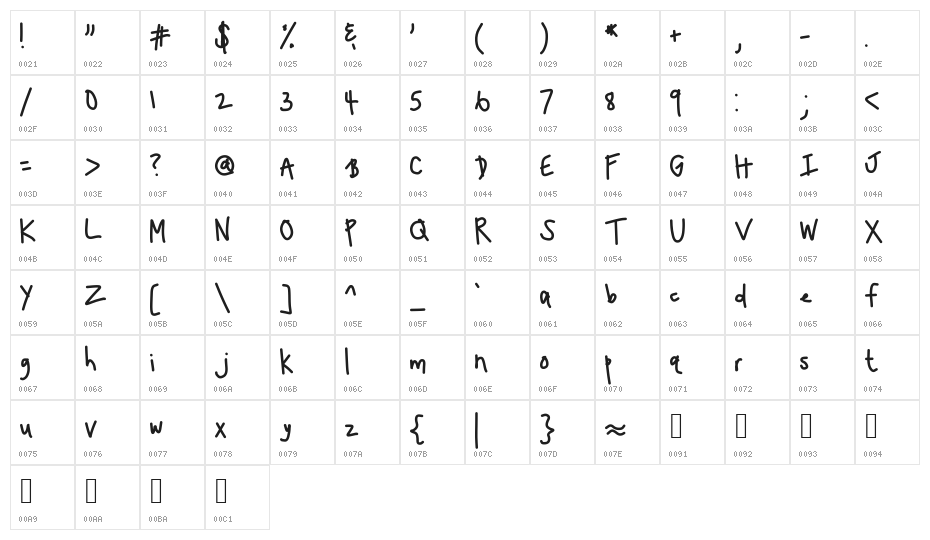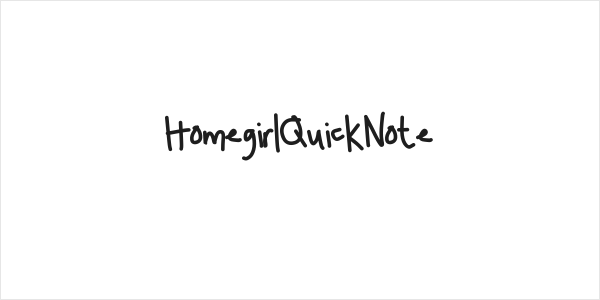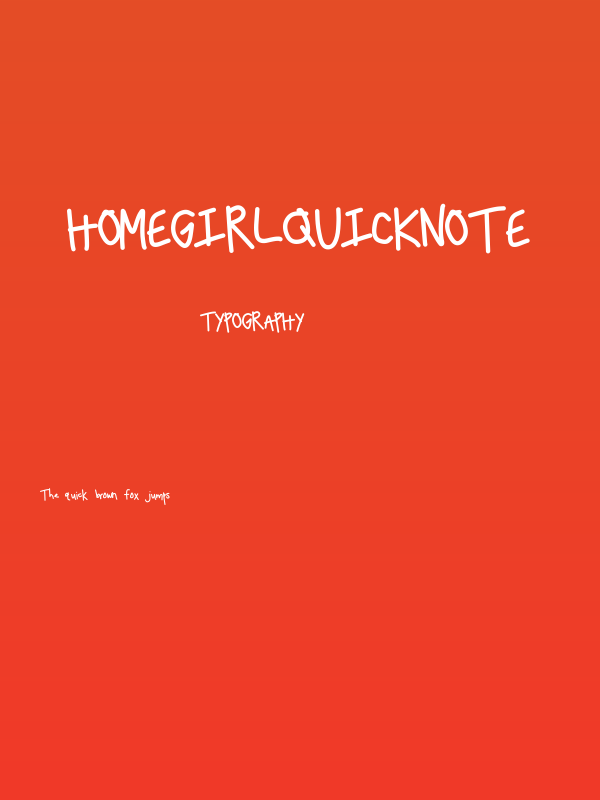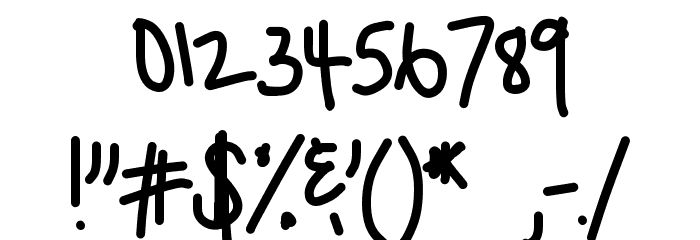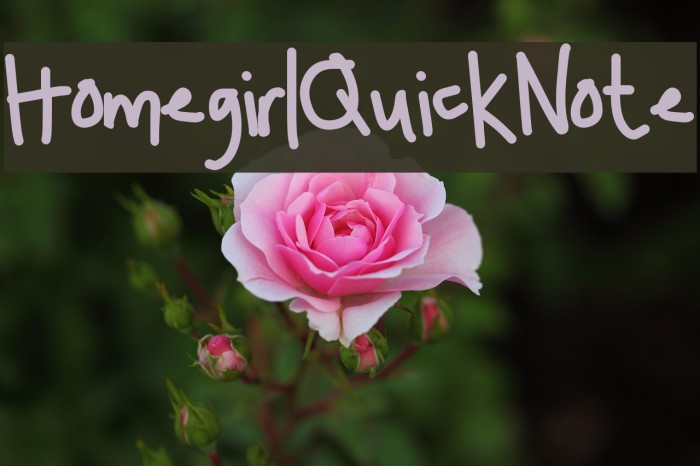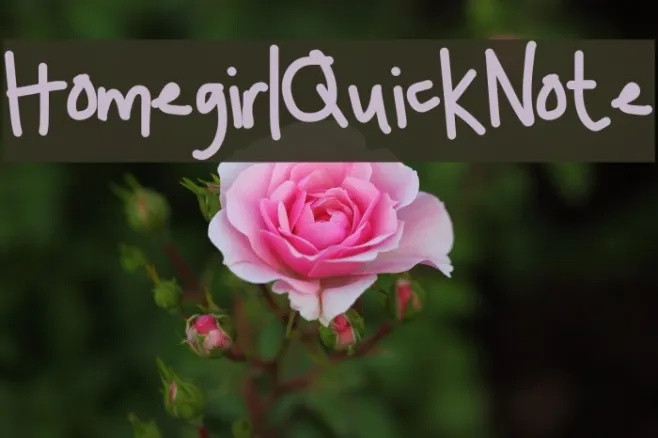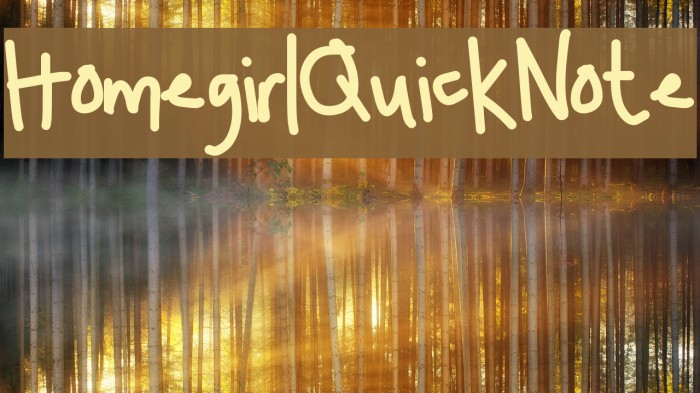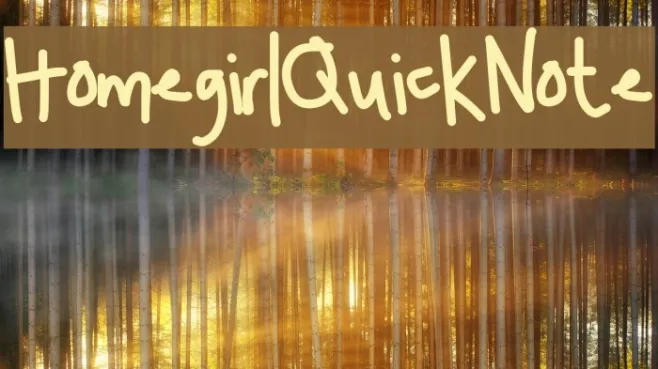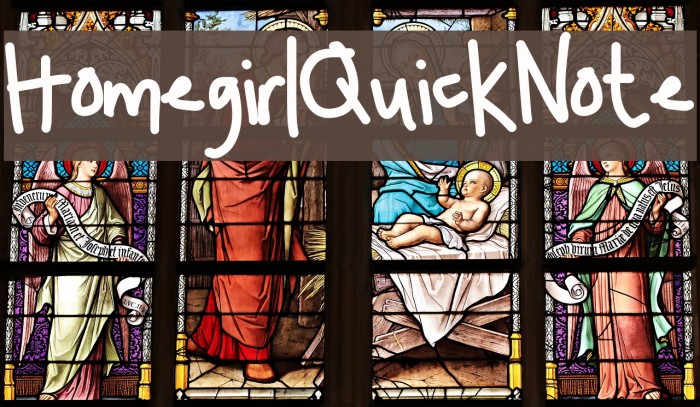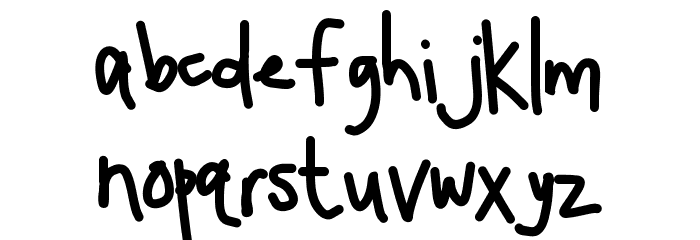
HomegirlQuickNote Font
HomegirlQuickNote Description
This font exudes a casual, handwritten style, reminiscent of quick notes jotted down in a notebook. The characters are slightly irregular, adding a personal and informal touch. The strokes are consistent in width, giving it a uniform appearance despite its playful nature. The uppercase and lowercase letters maintain a cohesive look, with rounded edges and a slight slant that enhances its handwritten feel. Numbers and special characters follow the same style, ensuring a harmonious overall design. This font is perfect for projects that require a friendly and approachable aesthetic.
| Overall Style | Casual, Playful |
| Use Case | Personal notes, Creative projects |
| Proposed Projects | Ideal for personal notes, casual invitations, children's books, and creative projects that require a friendly touch. |